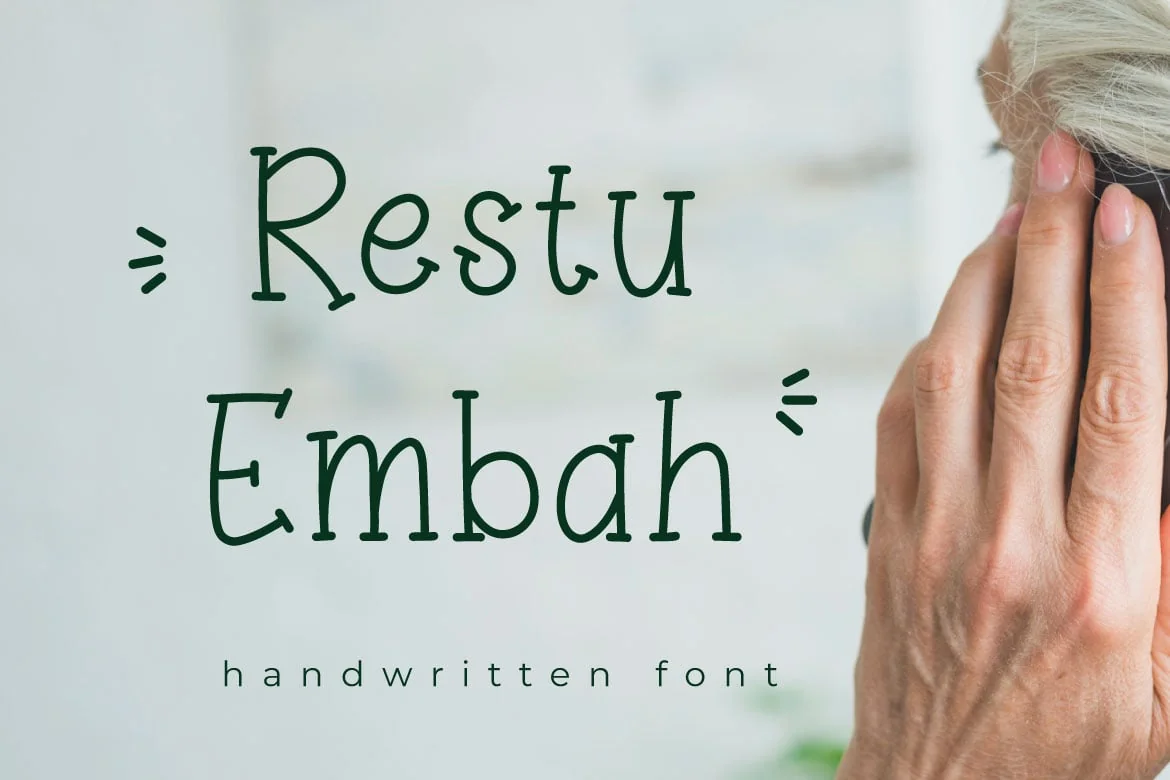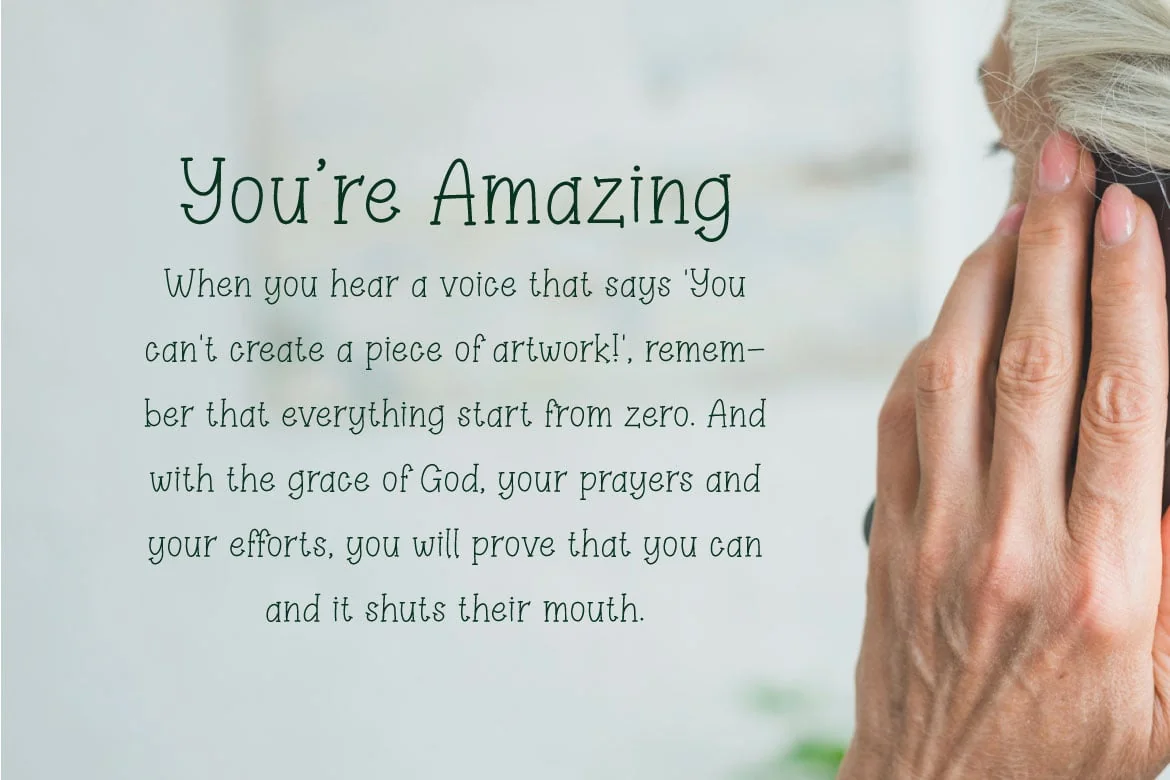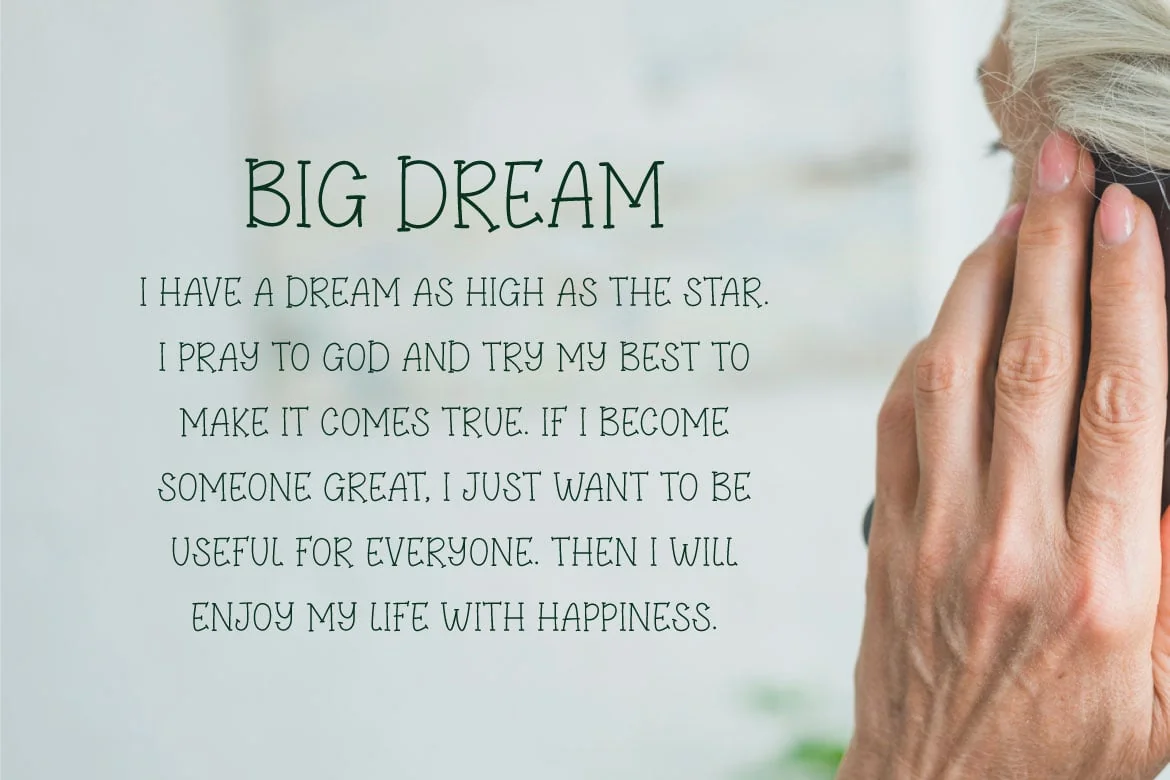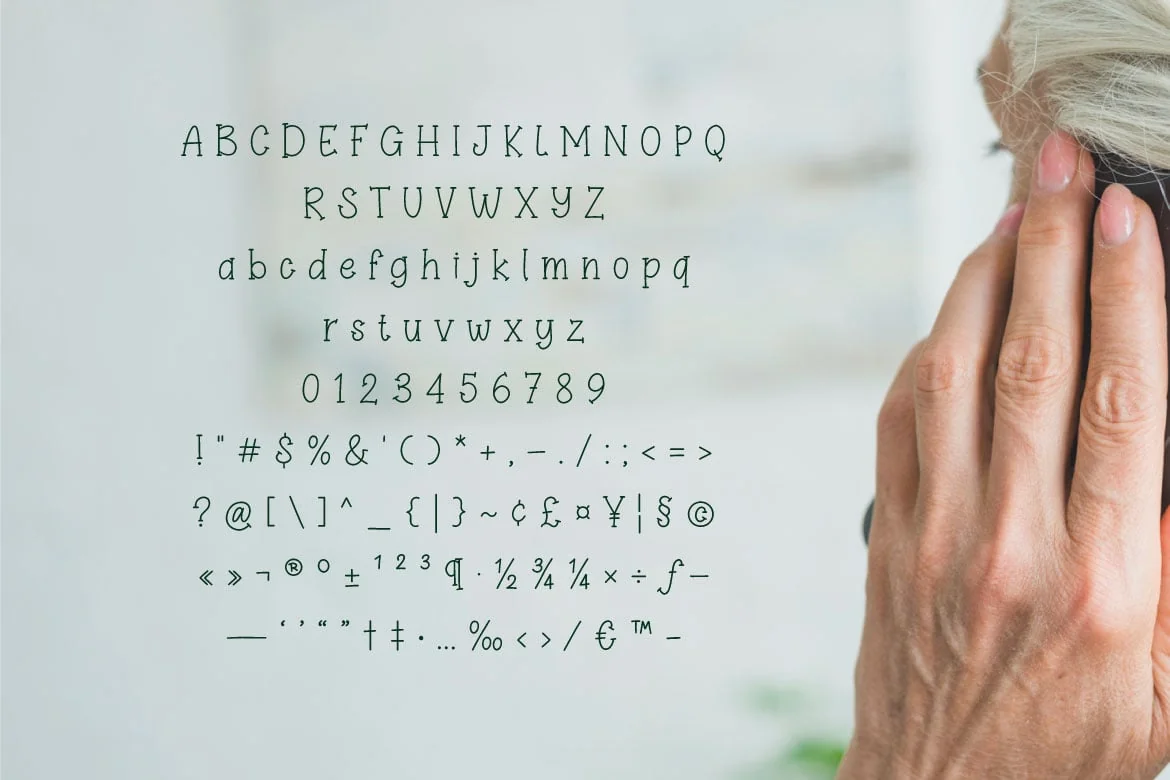
Restu Embah – Handwritten Font
Hello! Restu Embah is a modern thin handwritten font.
Restu Embah can be used in any works such as name card, birthday invitation, logo, cover, advertisement, banner, book title, magazine, and many more.